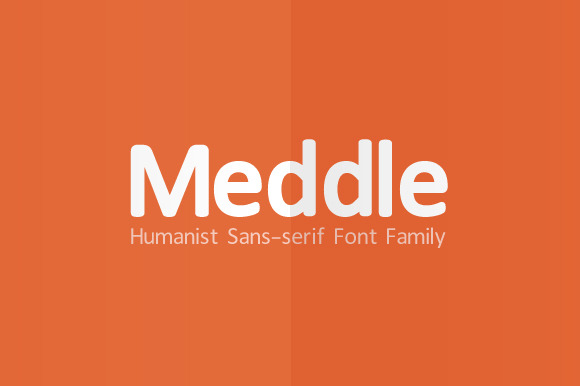
Meddle Sans-serif Font Family
Meddle is a humanist font family with subtle rounded edges and playful nature. Suitable for headlines and body text. Meddle includes Bold, Regular, Italic and Bold Italic styles!